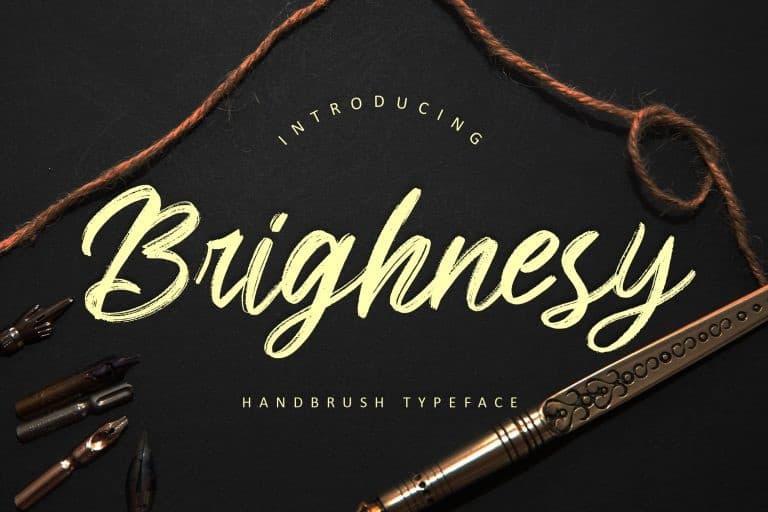
Brighnesy Font
Brighnesy Brush Font is a flowing and elegant handwritten font, created with the help of a brush pen. It’s designed and shared by Creatype Studio. This font is perfect for branding projects, logo, wedding designs, social media posts, advertisements, product packaging, product designs, label, photography, watermark, invitation, stationery and any projects that need handwriting taste.